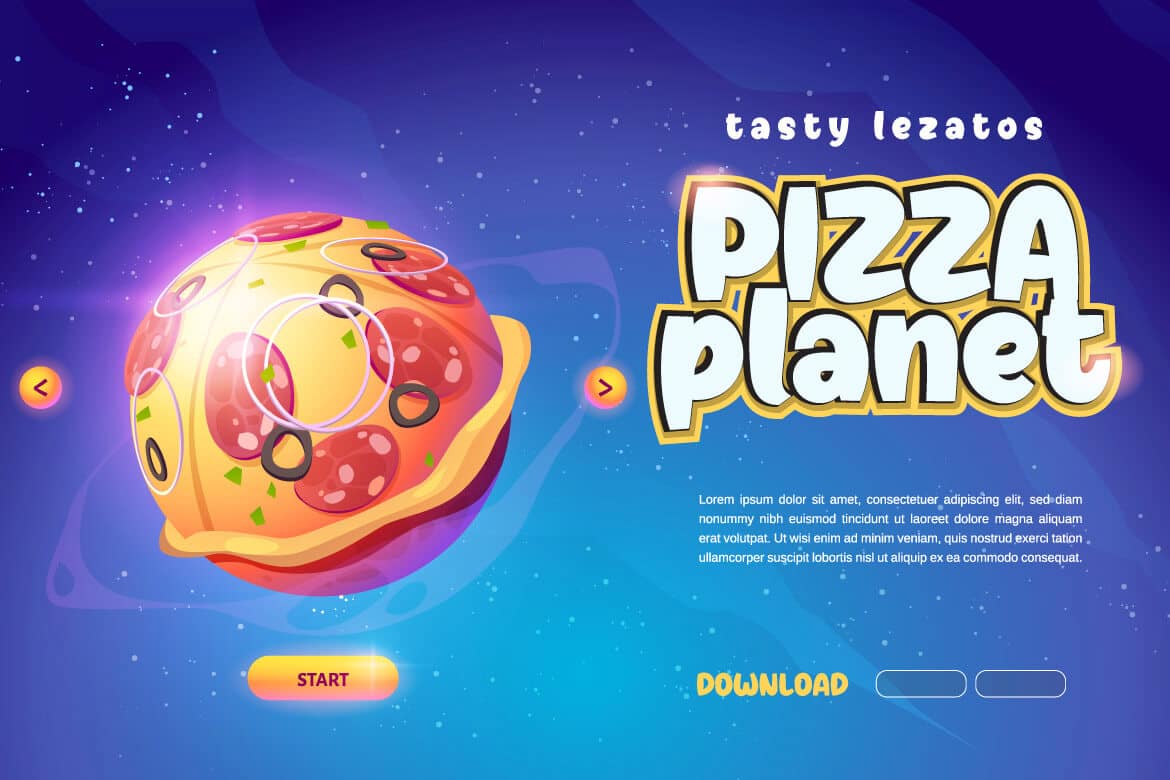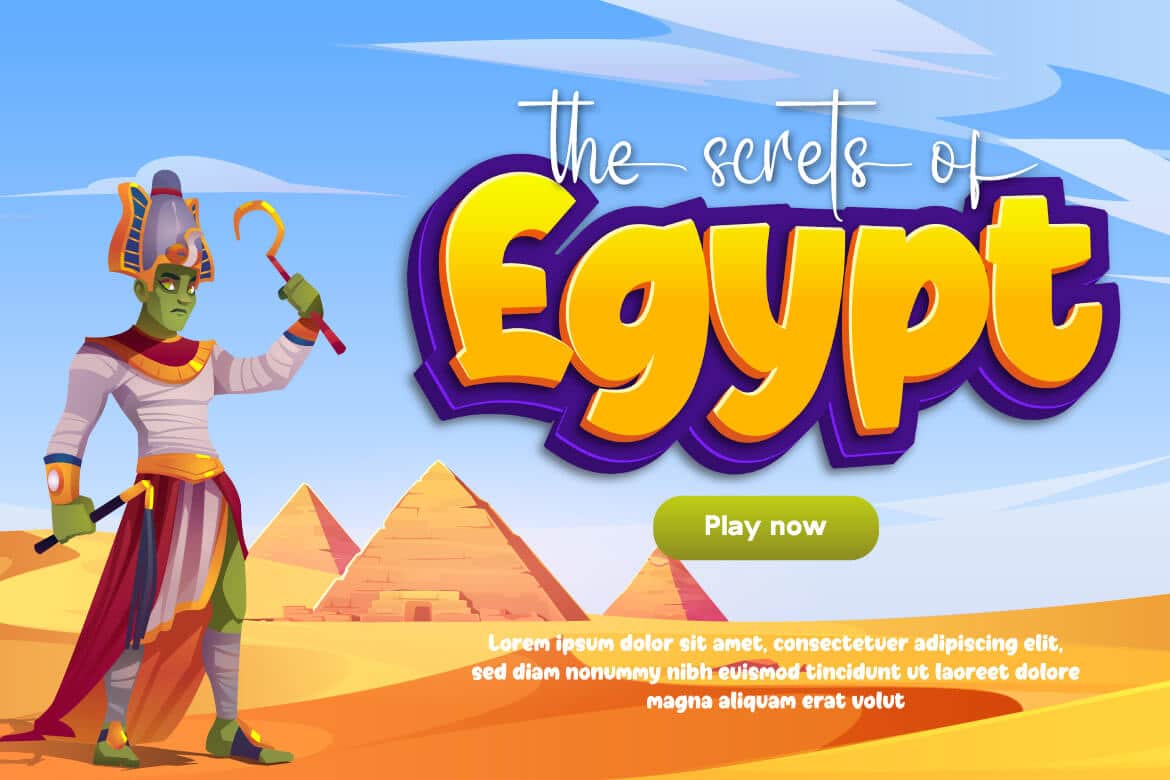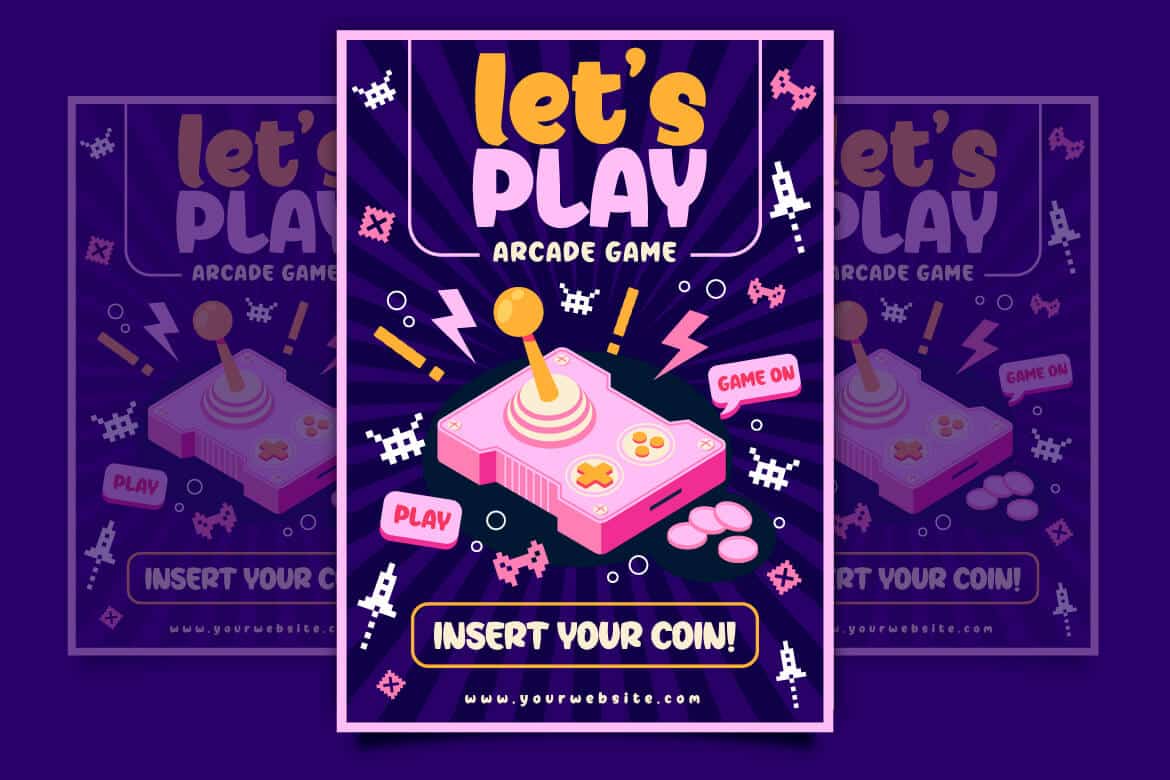
Star Player Font
The typeface Star Player Font was created with a powerful and bold idea in mind. Your project will become instantly unique, gorgeous, elegant, and strong as a result of adopting this typeface.